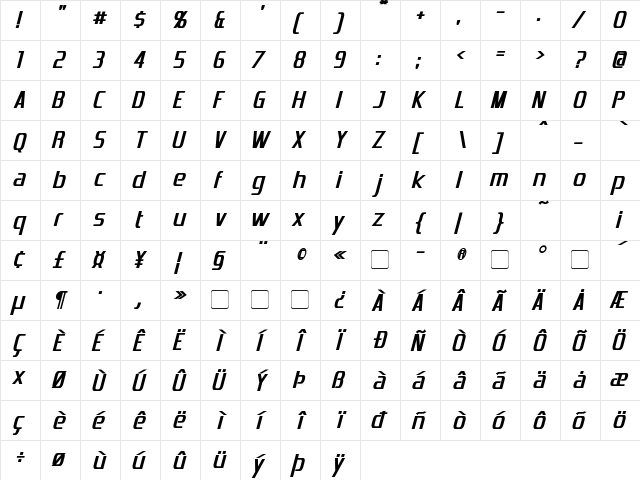
Emotion Engine Bold Italic
Bold Italic · Neale Davidson Neale Davidson ·
DesignerNeale Davidson
Design Context for Emotion Engine Typeface
Emotion Engine is a composed and adaptable typeface that performs quietly and consistently across a wide range of design contexts. The slanted form adds forward momentum and visual energy. The heavy weight commands attention and anchors typographic hierarchies.
Pro Tip: Use Emotion Engine for emphasis, pull quotes, and subheadings where its slanted energy can add rhythm to the layout.